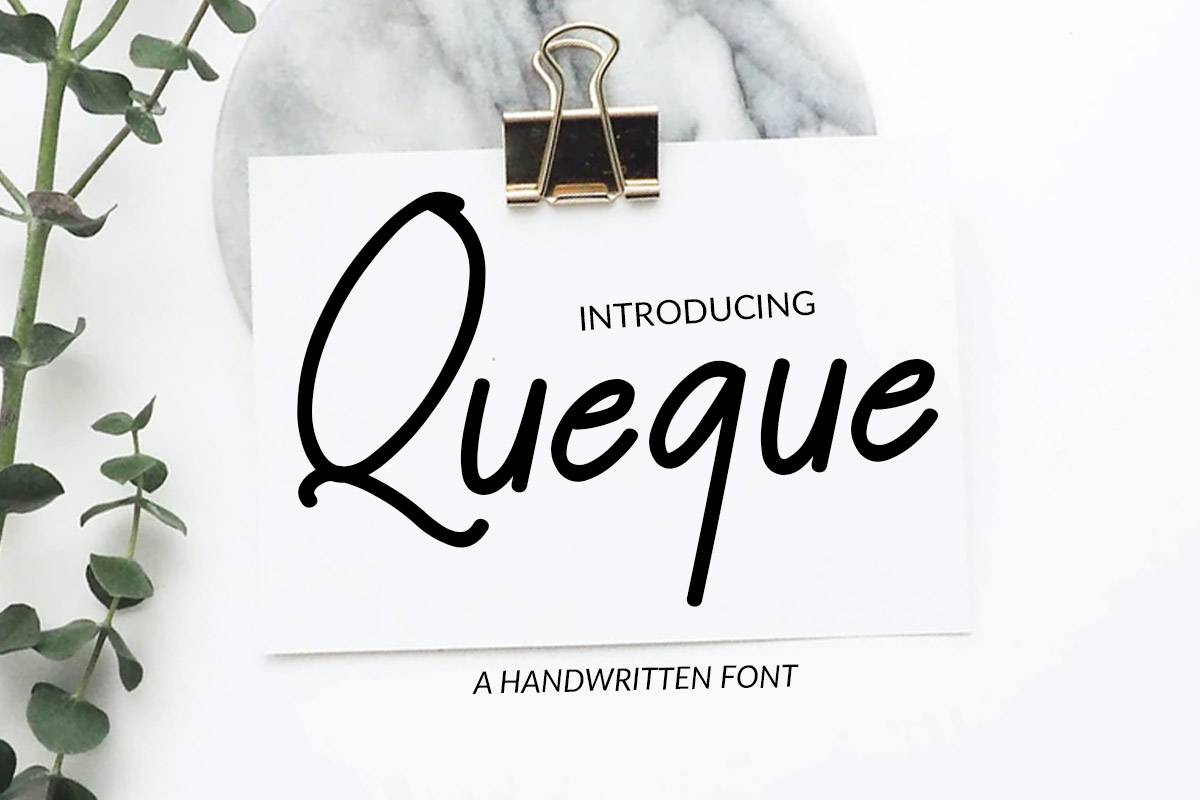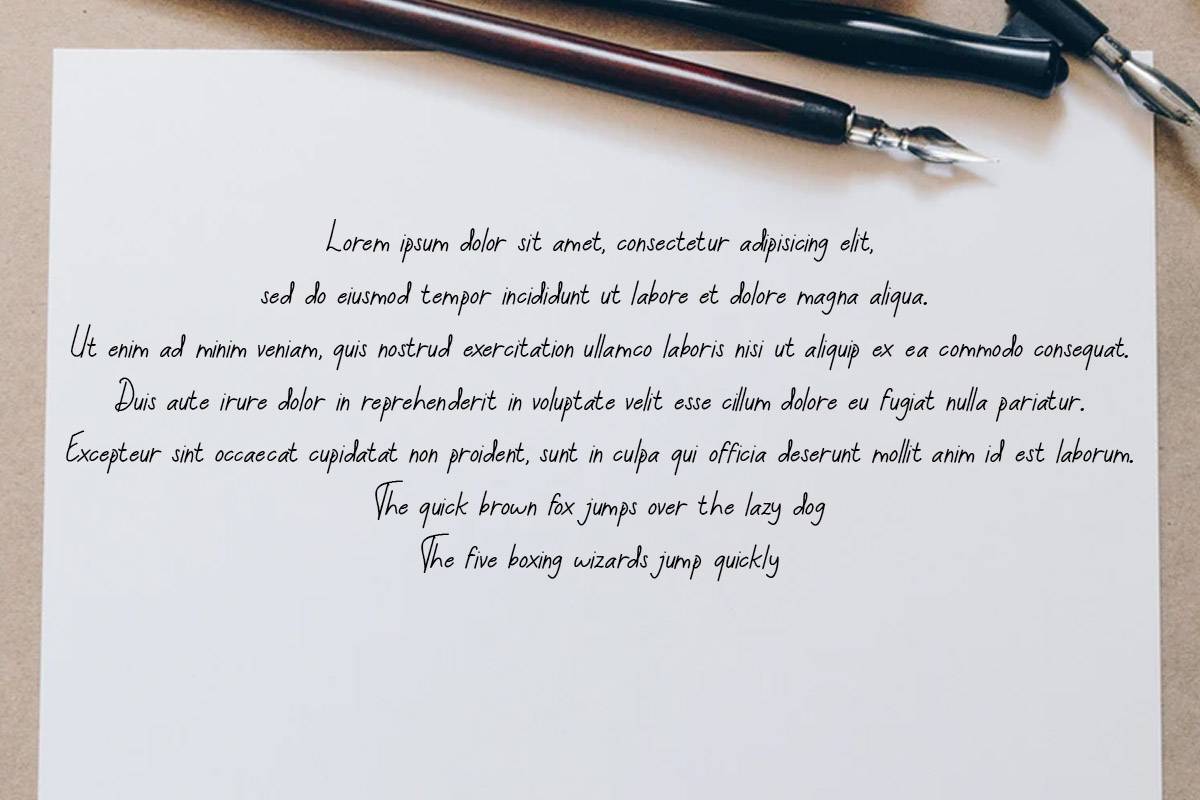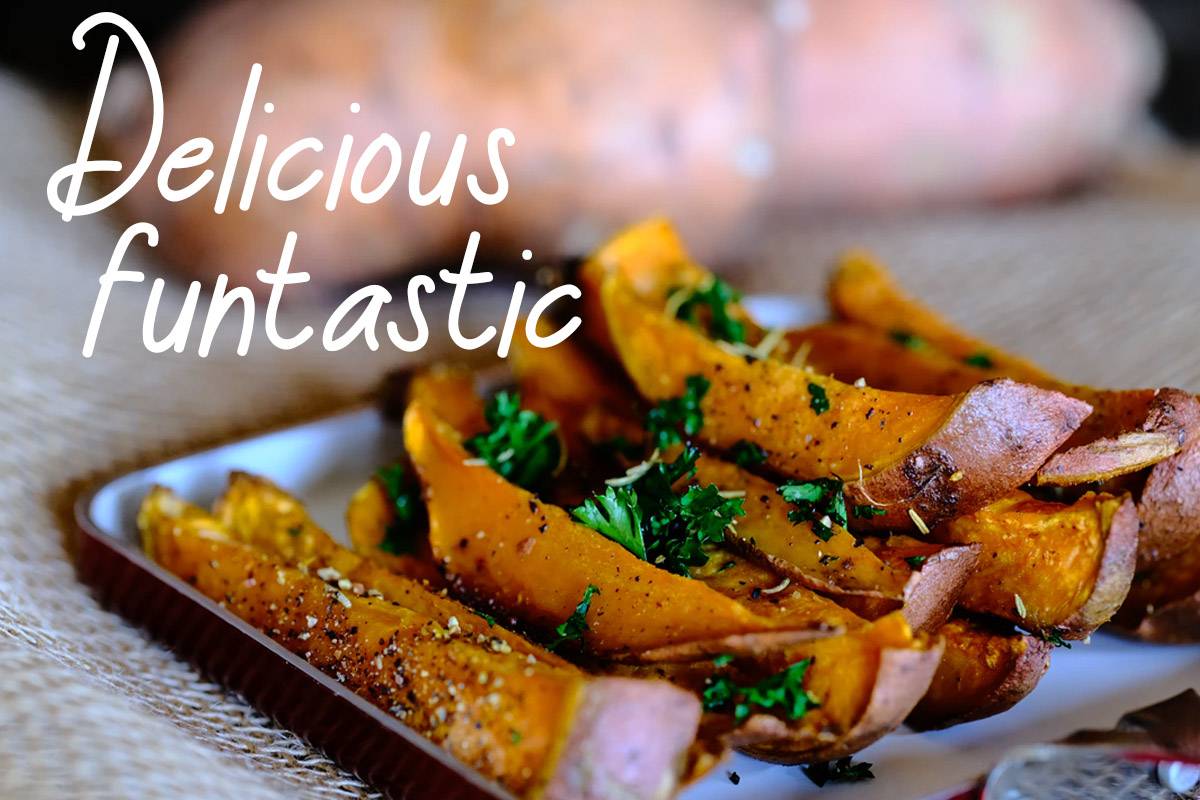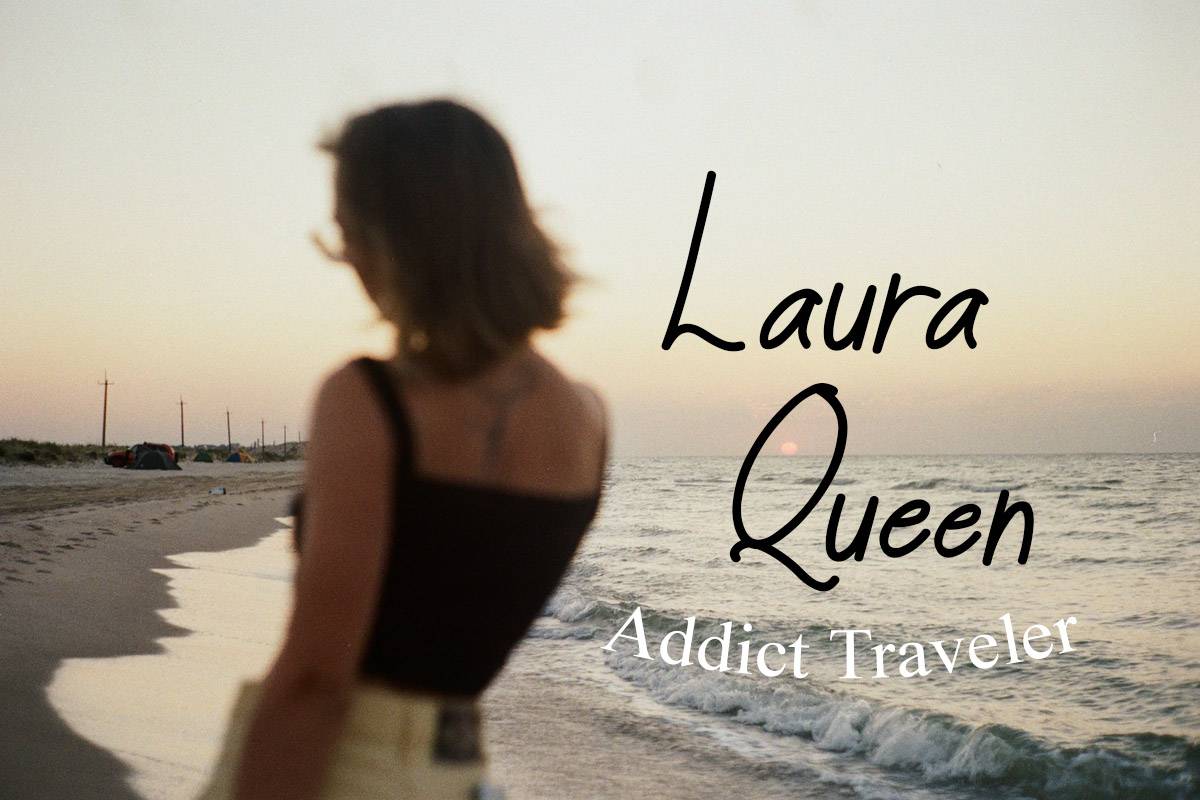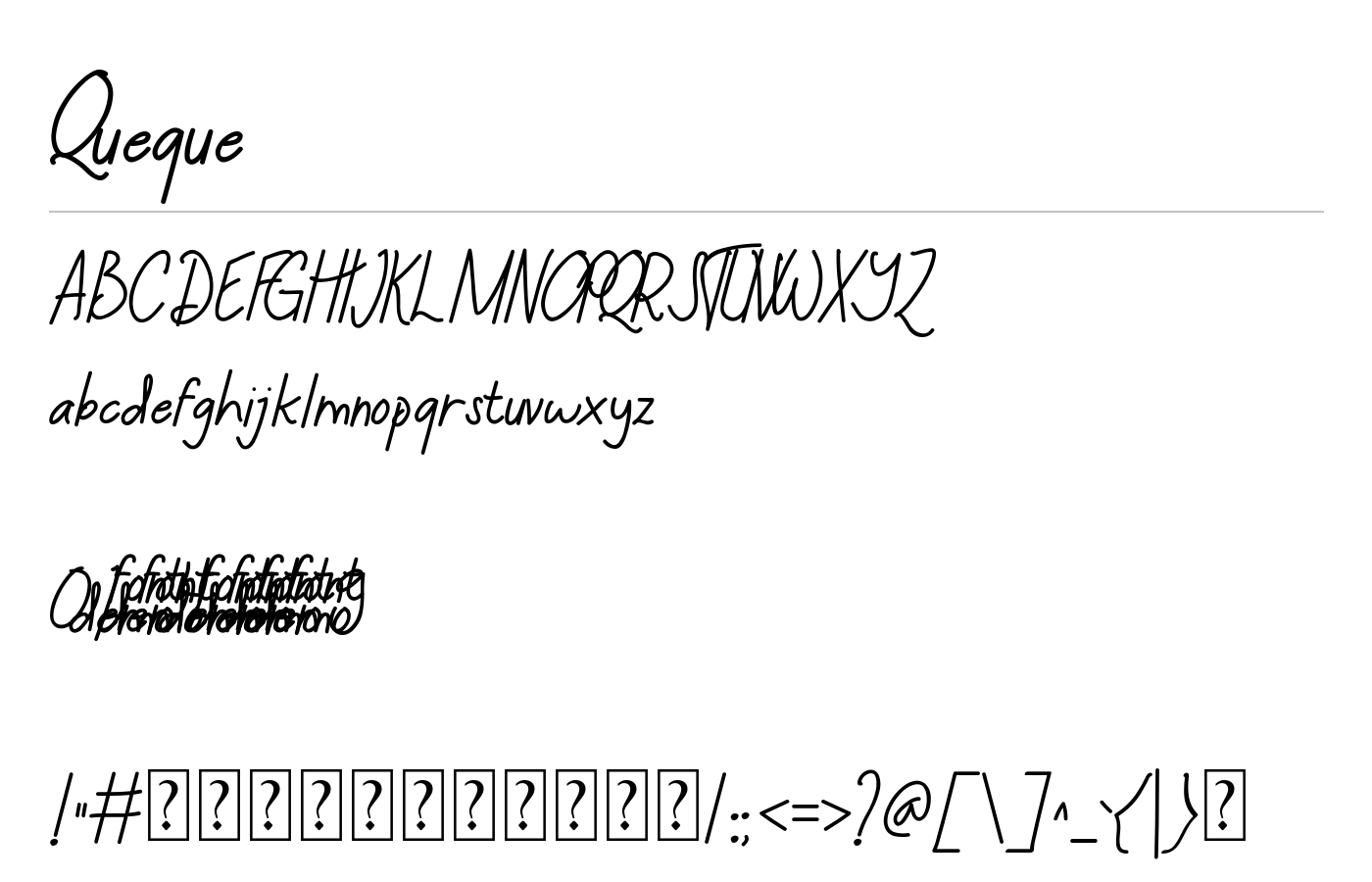
Queque is a light, narrow script font with a casual, handwritten feel characterized by slender, slightly irregular strokes that add a personal and approachable touch. Its tall, flowing letterforms with unique loops and single-story lowercase letters evoke friendliness and creativity, making it well-suited for informal branding, personal projects, and artistic designs where a relaxed yet stylish vibe is desired.
Queque Font
About Queque Font
| Font family | Queque Font |
| Designer | Bringtype.studio |